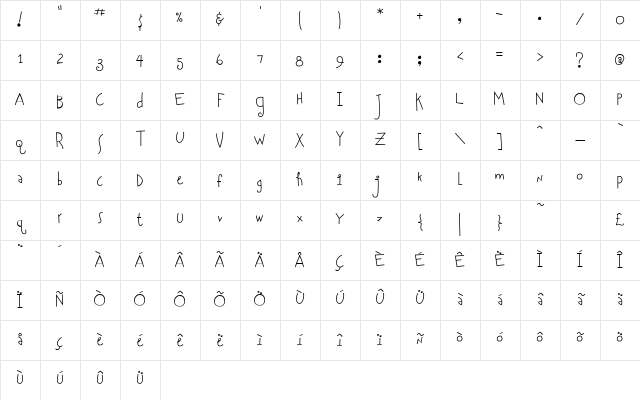
Submarine Medium Free Font
Submarine Medium
Complete Submarine Medium glyph index. Displaying only characters natively supported by Submarine Medium font.
Design Context for Submarine
Submarine is a composed and adaptable typeface that performs quietly and consistently across a wide range of design contexts.